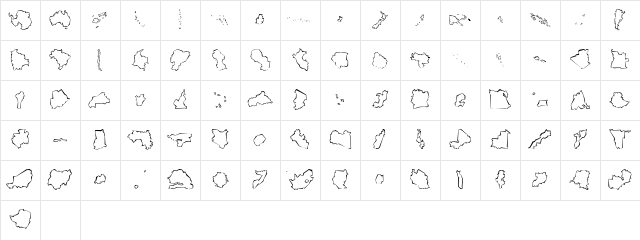
Mini Pics Global S Cutout Regular
Design Context for Mini Pics Global S Cutout
Mini Pics Global S Cutout is a composed and adaptable typeface that performs quietly and consistently across a wide range of design contexts.
Pro Tip: Use Mini Pics Global S Cutout in both headline and body roles to test its range before committing to a single application.